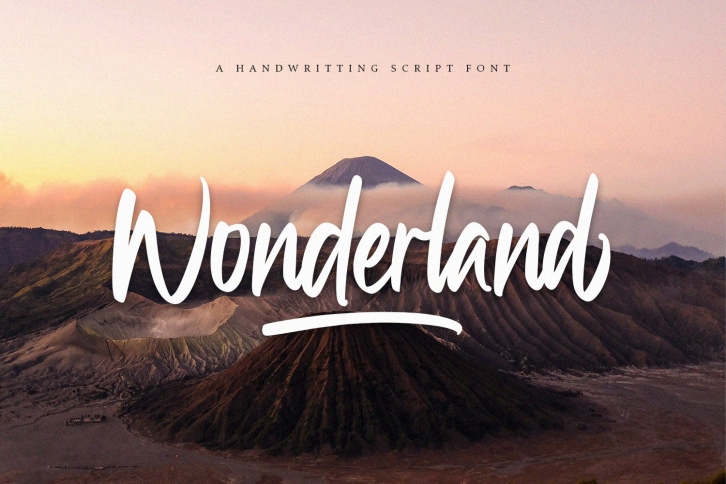
Wonderland is a beautiful font that was designed by Alpaprana Studio. It's a great choice for designers and creatives who need such a font. It was released on October 8, 2022 and the file size is 6.72 MB. Wonderland may give a more youthful, expressive and casual look to your project. It is a very beautiful, refined, elegant, and high-quality font.